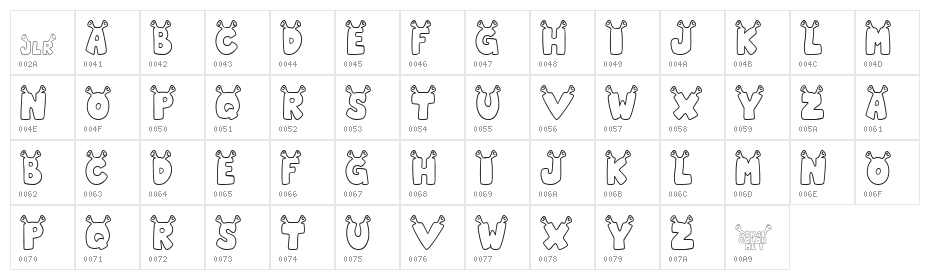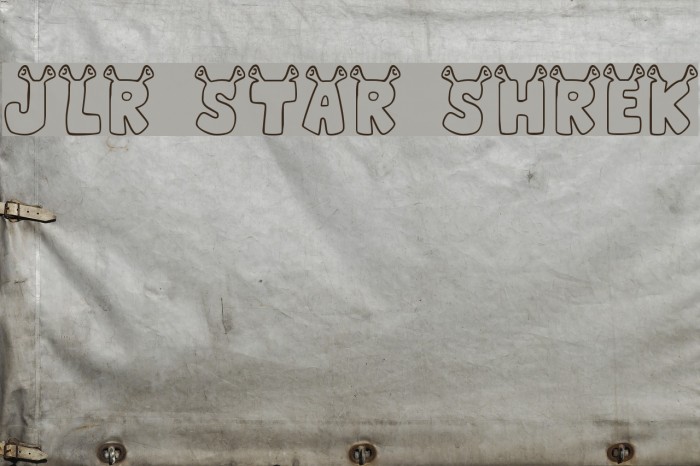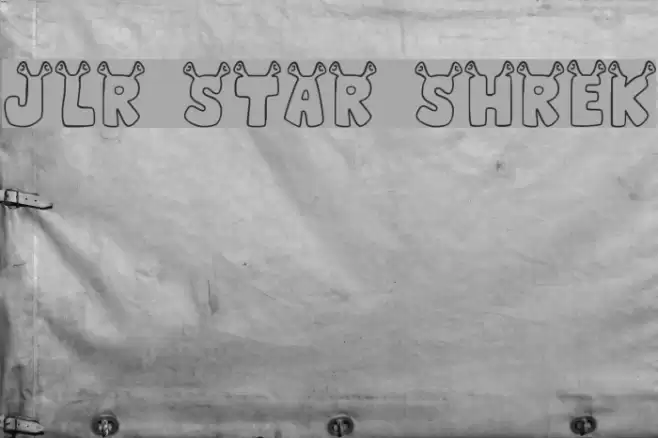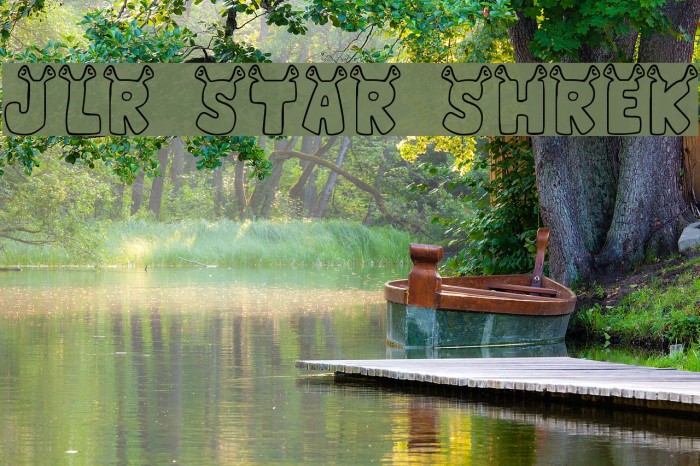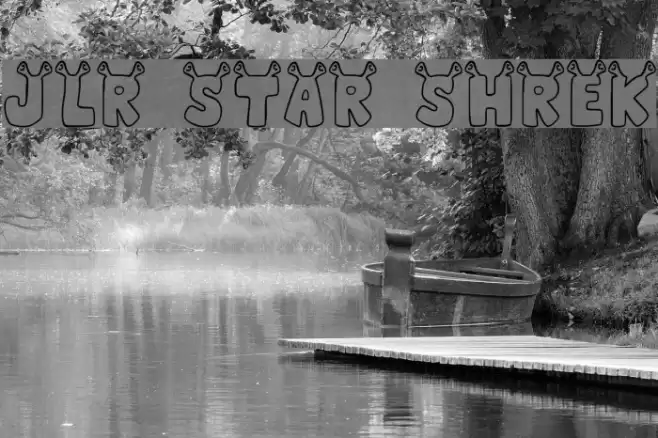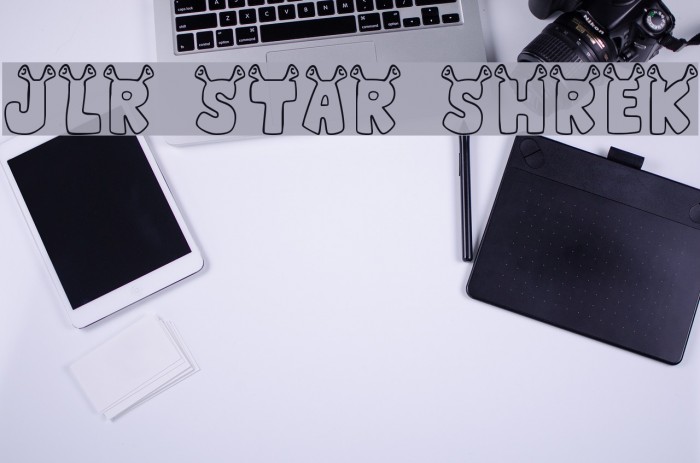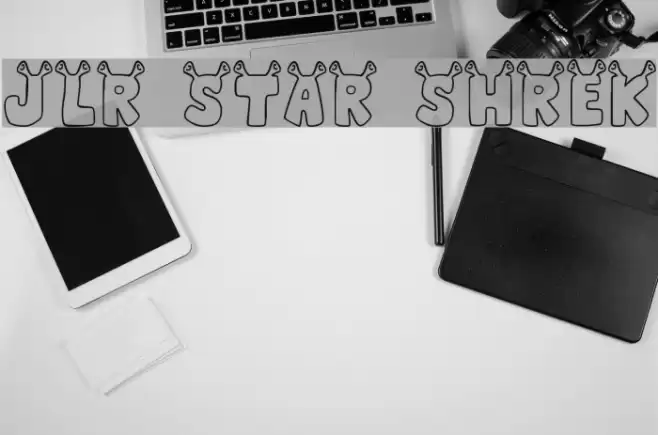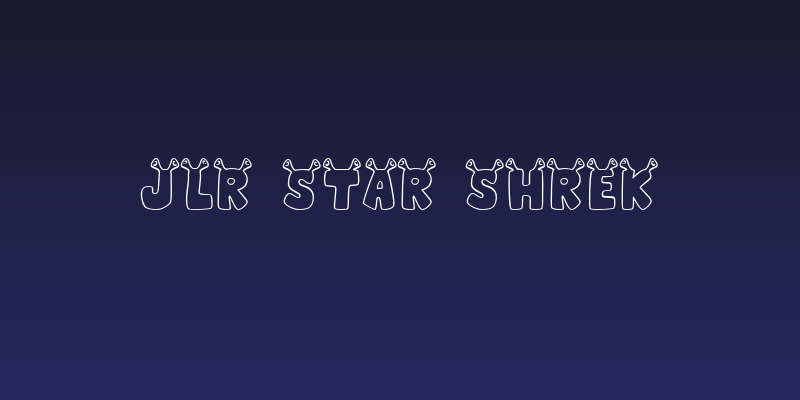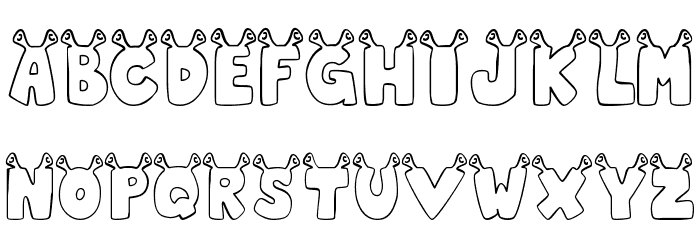
JLR Star Shrek Font
JLR Star Shrek Description
This playful and whimsical font features bold, cartoonish letters with unique, quirky elements that resemble antennae or whimsical horns on top of each character. The letters are thick and rounded, giving them a friendly and approachable appearance. The style is consistent across both uppercase and lowercase letters, maintaining a fun and lighthearted aesthetic. The font lacks traditional serifs, opting instead for a more modern and decorative look. It is designed to capture attention and evoke a sense of fun and creativity, making it ideal for projects that aim to convey a playful or imaginative theme.
| Overall Style | Playful, Whimsical, Modern |
| Proposed Projects | Ideal for children's books, playful branding, party invitations, or any project needing a fun and whimsical touch. |